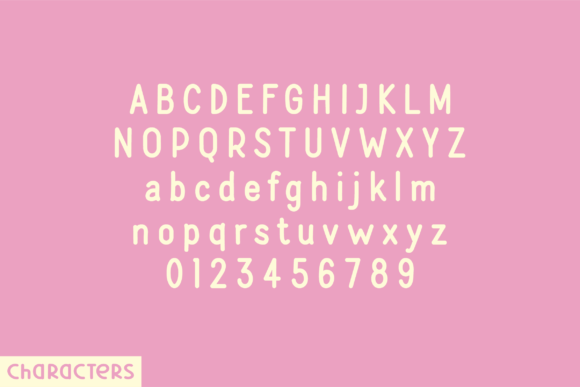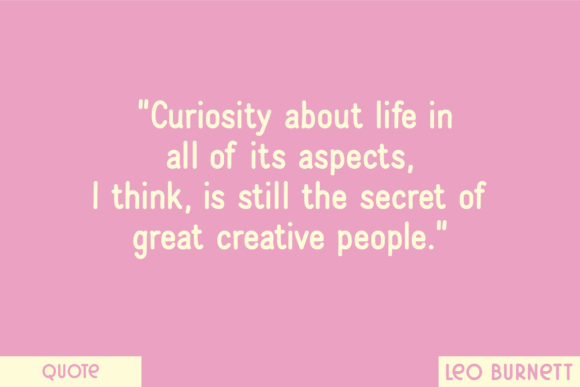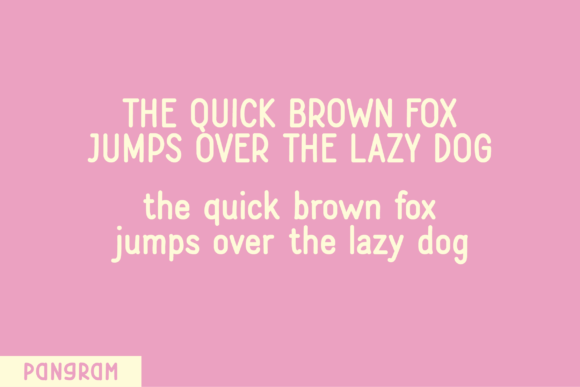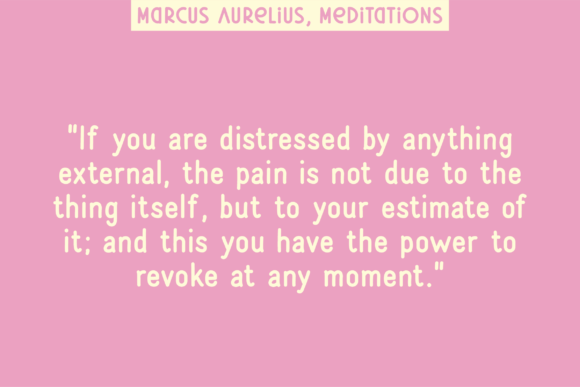
The Perfect Font for Your Next Design Project
Who hasn’t been there – staring at a blank page, trying to come up with the perfect font to match your creative vision? The moment of inspiration hits, and suddenly, everything falls into place. You envision a bold, playful font that jumps off the page and grabs the attention of your audience.
Enter the Bouncy Bunny Font, a charming sans serif font that’s perfect for adding a classic touch to your designs. Whether you’re creating quotes, notes, tees, logos, or social media graphics, this font is sure to make a statement. With its unique blend of boldness and playfulness, the Bouncy Bunny Font is a valuable addition to any designer’s toolkit.
As a designer, you know that the right font can make all the difference in capturing your audience’s attention. The Bouncy Bunny Font is no exception – its versatility and charm make it an ideal choice for a wide range of design projects.
- Unique Characteristics: Cartoonish, playful, and bouncy feel; perfect for children’s books, animations, and whimsical designs
Bouncy Bunny Font Review
I recently had the chance to work with the Bouncy Bunny Font, and I must say it’s a unique and eye-catching addition to any design project. ✨ Here are a few things that really stood out to me:
- Its playful and whimsical feel makes it perfect for children’s books, party invitations, or any other design that needs a touch of fun.
- The font’s bouncy and energetic vibe is infectious, and it’s sure to grab the viewer’s attention.
- It’s highly customizable, allowing you to adjust the size, color, and spacing to fit your design needs.
- The font may be too bold or overpowering for more formal designs or corporate materials.
- It may not be the best choice for body text, as it can be a bit difficult to read at smaller sizes.
Overall, I think the Bouncy Bunny Font is a great addition to any designer’s toolkit. While it may have some limitations, its unique and playful feel makes it a great choice for the right project. With a little creativity and restraint, I think this font has a lot of potential for creating some truly eye-catching designs.
For a playful and eye-catching design, use the Bouncy Bunny Font for headings and titles, and pair it with a clean sans-serif font for body text.
For a whimsical touch, use the Bouncy Bunny Font for text overlays, quotes, or other design elements that require a playful feel.
For a fun and engaging presentation, use the Bouncy Bunny Font for headings, titles, and other design elements that require a playful touch.
Tips for Getting the Most Out of the Bouncy Bunny Font
Use the Bouncy Bunny Font to add a playful and whimsical touch to your designs.
Pair the Bouncy Bunny Font with clean and simple fonts to create visual interest and balance.